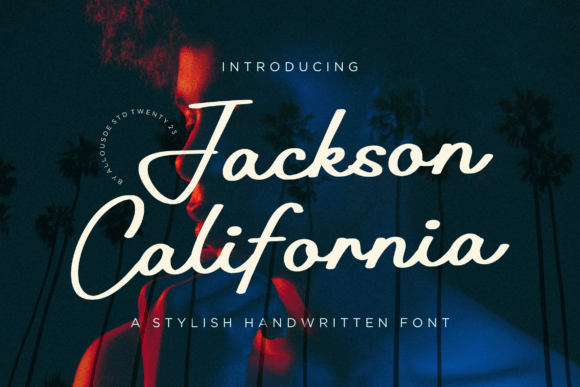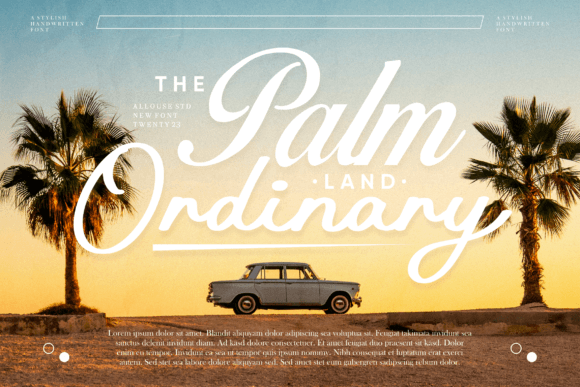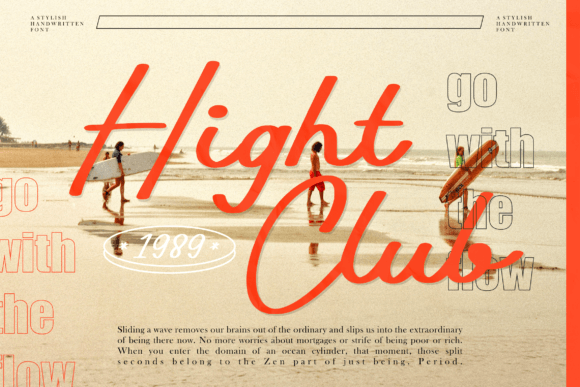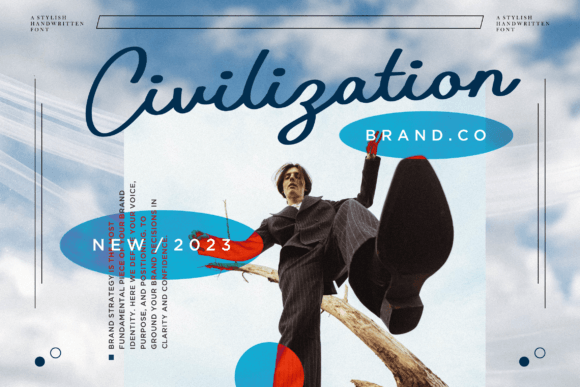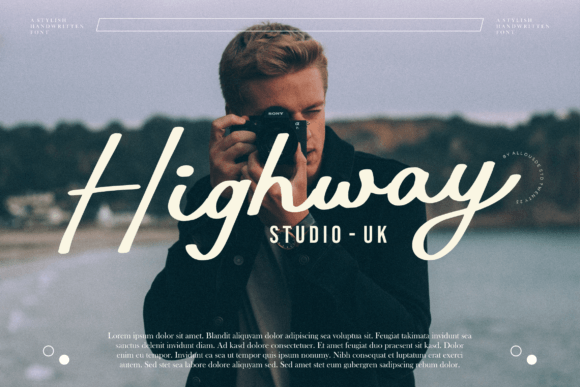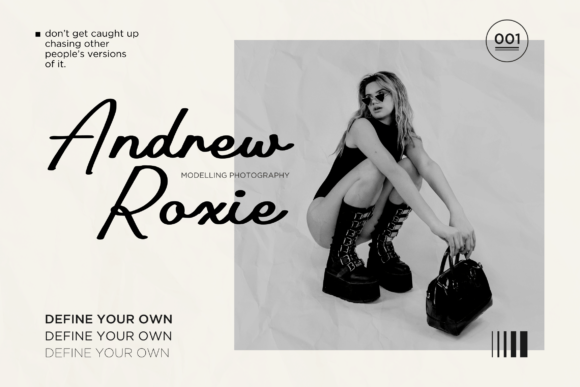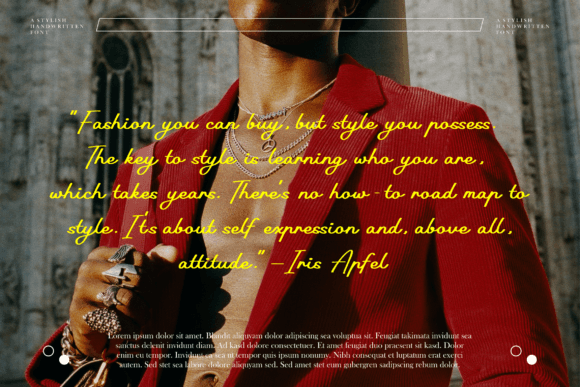
The Perfect Handwritten Touch: Discovering Jackson California Font
Have you ever stumbled upon a beautifully designed logo or a perfectly crafted social media post that left you wondering what magic happened behind the scenes? For designers, that ‘aha’ moment is what drives creativity and inspires new projects. It’s the culmination of a well-chosen font, a dash of creativity, and a pinch of personality.
One such font that embodies this essence is the Jackson California Font, a stylish handwritten font designed to add a personal touch to any design project. Whether it’s product packaging, branding, magazines, or social media, this font is perfect for making your message stand out. With its unique, hand-crafted feel, Jackson California Font is a valuable asset for designers looking to add a touch of elegance and sophistication to their work.
Key Features of Jackson California Font
- Unique Characteristics: This font features a classic, elegant design inspired by the early 20th-century California architecture, with intricate details and ornate flourishes.
- Font Style: Script, Calligraphy, Decorative
Review of Jackson California Font
I’ve had the chance to work with Jackson California Font, and I must say it’s a unique and charming addition to any design project. ✨ The font’s vintage feel and relaxed vibe make it perfect for creating a laid-back atmosphere, reminiscent of the classic California style.
Here are some of the things that work well with this font:
- ✨ The font’s legibility is excellent, making it easy to read even in smaller sizes.
- ✨ The font’s versatility allows it to work well in a variety of contexts, from headlines to body text.
- ✨ The font’s unique character set includes a range of quirky and interesting glyphs that add to its charm.
- ⚠️ The font may not be suitable for projects that require a more formal or professional tone.
- ⚠️ The font’s quirky character set may not be to everyone’s taste, and some users may find it too distracting.
Overall, I think Jackson California Font is a great choice for designers who want to add a touch of California cool to their projects. With its unique character and excellent legibility, it’s a great option for a wide range of applications.
The Jackson California font is a modern, elegant script font that is perfect for:
- Special event signage and graphics
- Personalized gifts and cards
For the best results, use the Jackson California font in combination with clean, minimalist designs and bold graphics.
Alternatives to Jackson California Font
Playfair Display is a luxurious and elegant serif font, perfect for high-end branding, invitations, and special occasion designs. It features intricate details and a touch of sophistication.
Comparison to Jackson California Font: While Jackson California Font has a modern and casual feel, Playfair Display is more traditional and ornate. Playfair Display is ideal for projects that require a sense of luxury and refinement, whereas Jackson California Font is better suited for modern and casual designs.
Great Vibes is a modern and elegant script font, ideal for designs that require a touch of sophistication and refinement. It’s perfect for branding, packaging, and advertising materials.
Comparison to Jackson California Font: Great Vibes has a more refined and elegant feel compared to Jackson California Font. While Jackson California Font is more casual and laid-back, Great Vibes is more formal and sophisticated. Great Vibes is ideal for projects that require a sense of elegance and refinement, whereas Jackson California Font is better suited for modern and casual designs.
Carolyna Pro is a modern and elegant sans-serif font, perfect for designs that require a sense of sophistication and refinement. It’s ideal for branding, packaging, and advertising materials.
Comparison to Jackson California Font: Carolyna Pro has a more modern and refined feel compared to Jackson California Font. While Jackson California Font is more casual and laid-back, Carolyna Pro is more formal and sophisticated. Carolyna Pro is ideal for projects that require a sense of elegance and refinement, whereas Jackson California Font is better suited for modern and casual designs.